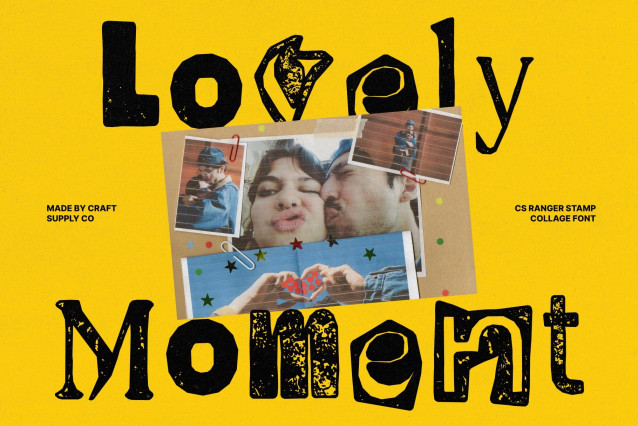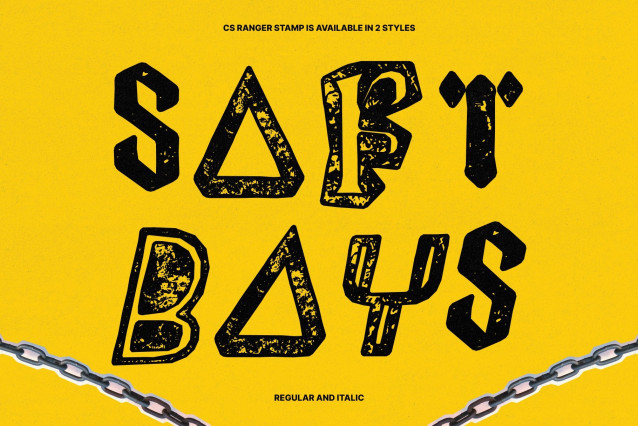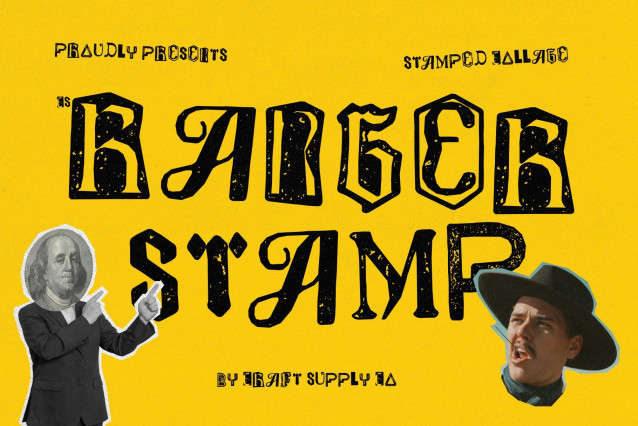
CS Ranger Stamp – Funky Display Font: Where Collage Chaos Meets Vintage Stamp Texture
Eclectic Cut-Out Forms with Free-Spirited Energy
this is a unique display font inspired by the eclectic style of cut-out letters and classic ransom note typography. Its irregular letterforms vary in style, size, and texture, creating a layered collage-like appearance filled with playful unpredictability and artistic expression. Every character feels bold, unconventional, and full of personality, perfect for creative projects that celebrate individuality and visual experimentation.
Stamp Texture with Authentic Vintage Character
This font features rough and uneven detailing that adds vintage authenticity and tactile visual depth. This textured finish creates a worn handcrafted appearance reminiscent of old print techniques, stamped graphics, and retro poster art. The result is a design that feels nostalgic, expressive, and rich with artistic character.